Detail Type Foundry
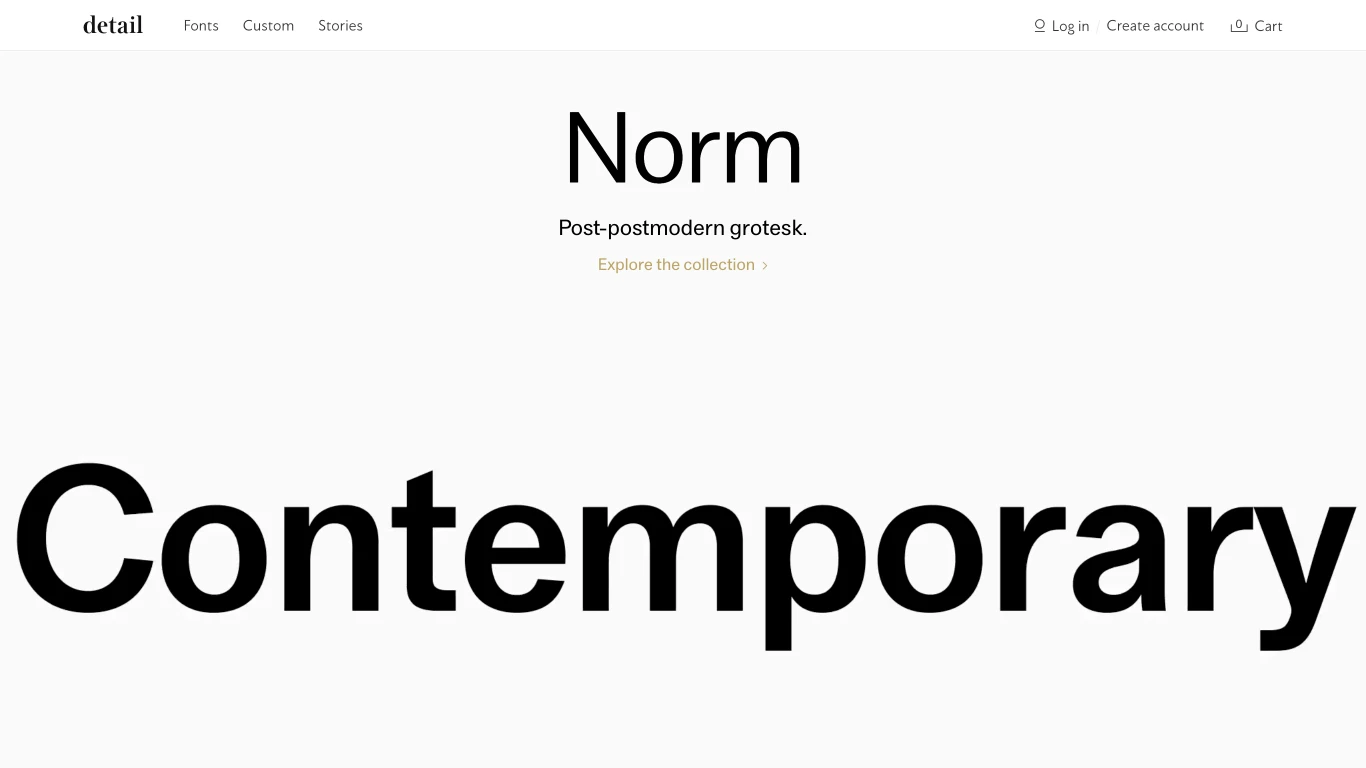
Japan
2018
Detail Type Foundry, established in 2018, is the type design department of Kamimura & Co., an independent design studio based in Japan.Founded by graphic designer Makoto Kamimura, Detail specializes in creating unique typefaces that enhance brand identities.Notable projects include the 'Norm' series, an ongoing study of modern grotesque typefaces, and 'Astro,' a neo-humanist sans serif family comprising 40 styles.Detail also offers custom typeface design services, tailoring fonts to meet specific client needs.